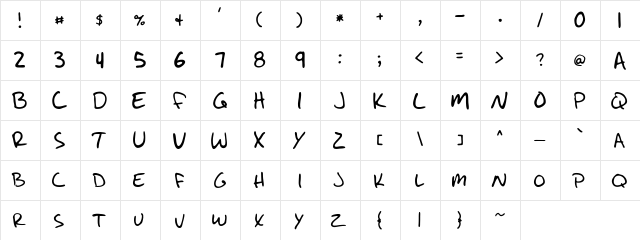
Write Like Jesse Regular
| Foundry | Jesse H. Gerard |
| Designer | Jesse Gerard |
Design Context for Write Like Jesse Typeface
Write Like Jesse is a composed and adaptable typeface that performs quietly and consistently across a wide range of design contexts.